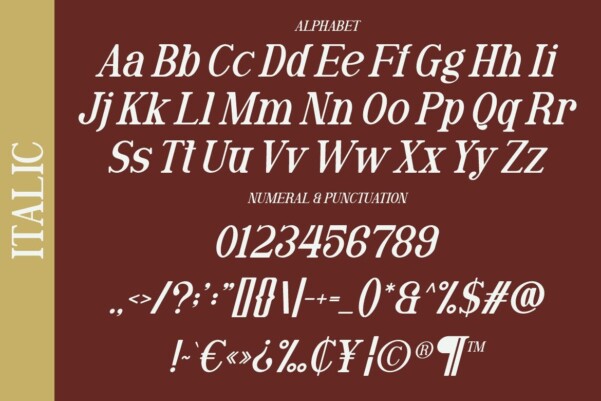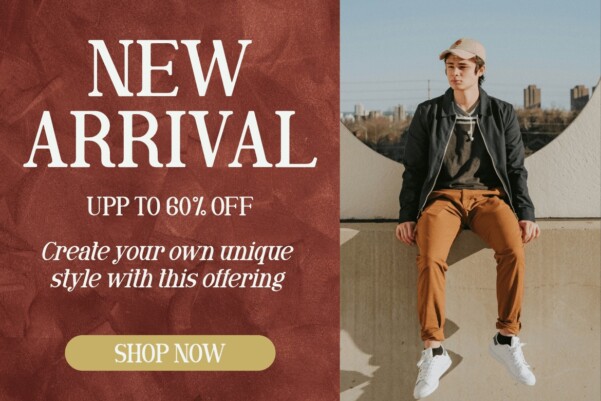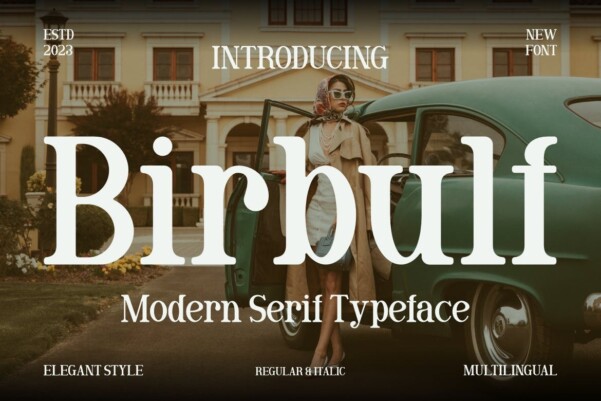
Birbulf Font
Birbulf Font – Modern Classic Serif Typeface, tThis font has a series of small or decorative projections called serifs at the ends of its characters. Serifs provide a more formal, classic, and easy-to-read appearance to printed text. Serif fonts are often used in formal documents, books, and print publications because of their good legibility at small text sizes.